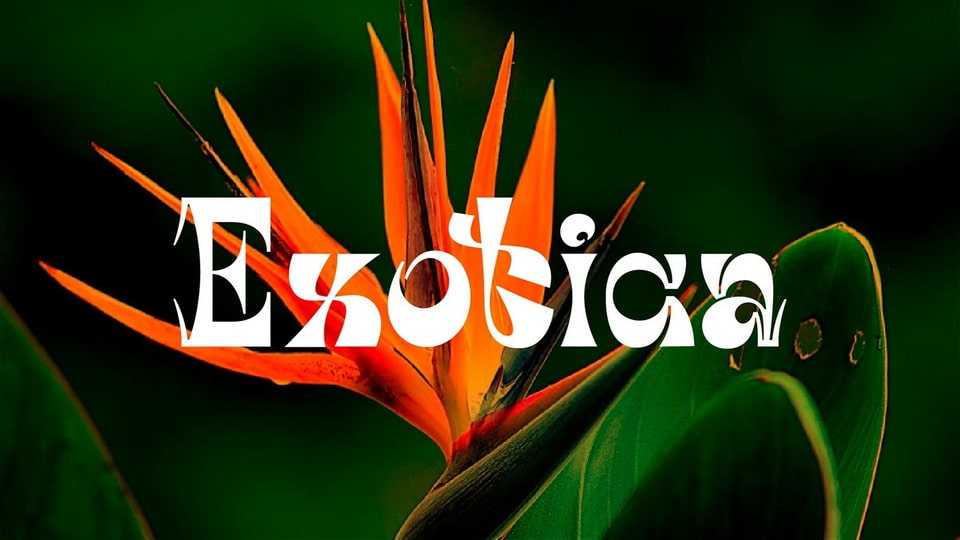
Download Exotica font, a modern experimental display typeface that inspired by the aesthetics of expressionism from the early 20th century. Exotica font pushes the boundaries of typography with its unconventional letterforms and avant-garde design.
Designer: Ivan Vetrov